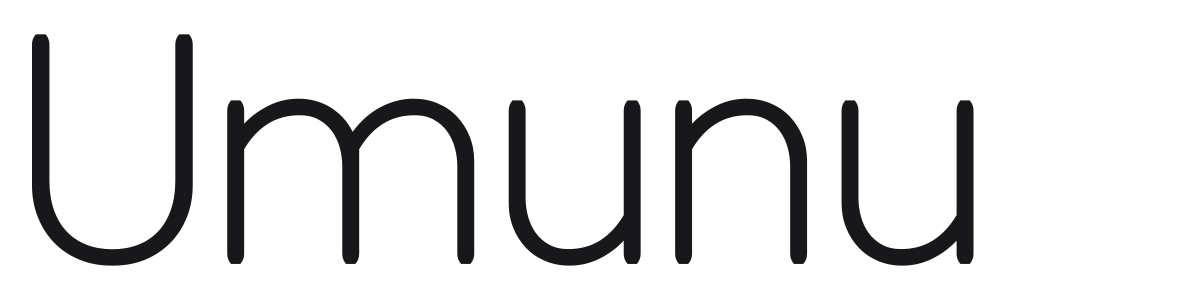
Umunu
Umunu is a light geometric sans-serif with softly rounded terminals and an open, airy construction. Its near-monoweight strokes and circular geometry give it a contemporary friendliness that works well across branding, packaging, and editorial contexts. The light weight keeps it elegant without sacrificing warmth.